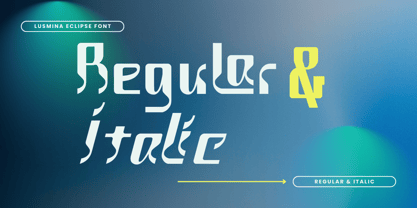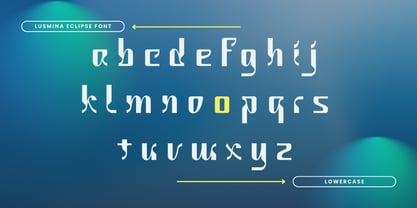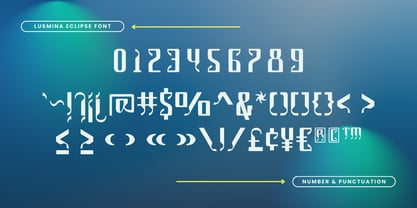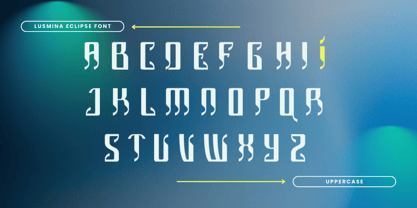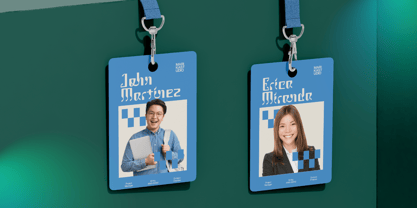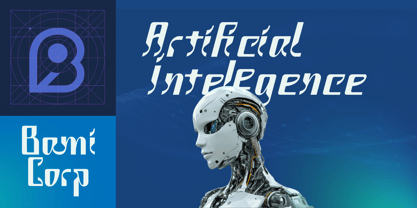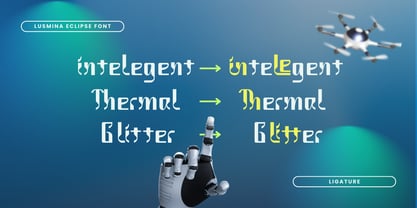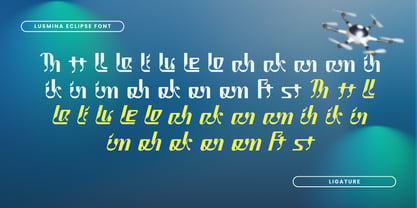
Lusmina Eclipse
by Attype Studio
The Lusmina Eclipse Font Family was designed by Fadli Ramadhan Iskandar and published by Attype Studio. Lusmina Eclipse contains 2 styles and family package options. More about this family
Lusmina Eclipse is a modern logo font designed with futuristic curves and geometric strokes that make it stand out in any branding project. With over 250 glyphs, including ligatures and alternates, this typeface offers a balance of innovation and versatility. Available in Regular and Italic styles, Lusmina Eclipse is perfect for creating bold logos, sleek branding, professional presentations, and cutting-edge digital projects. Its clean yet creative design ensures strong readability while maintaining a unique aesthetic, making it an excellent choice for agencies, startups, and creators who want to leave a lasting impression. Perfect for: Modern Logo Designs, Branding & Identity Projects, Tech Startups and Creative Agencies, Business Cards & Stationery, Presentation Titles, Website Headers & UI/UX Design, Posters and Promotional Materials, Futuristic or Sci-Fi Projects. Features : - Lusmina Eclipse Family Font - Ligatures - Multilingual, US Roman, Latin 1 Support --- Hope you enjoy with our font! Attype Studio
Designers: Fadli Ramadhan Iskandar
Current Foundry: Attype Studio